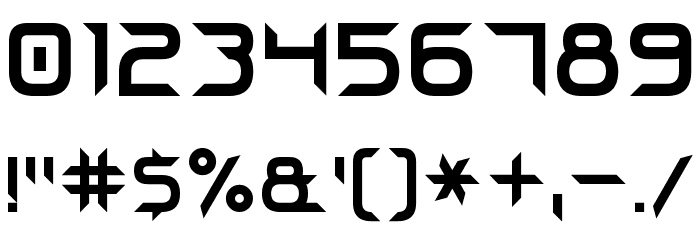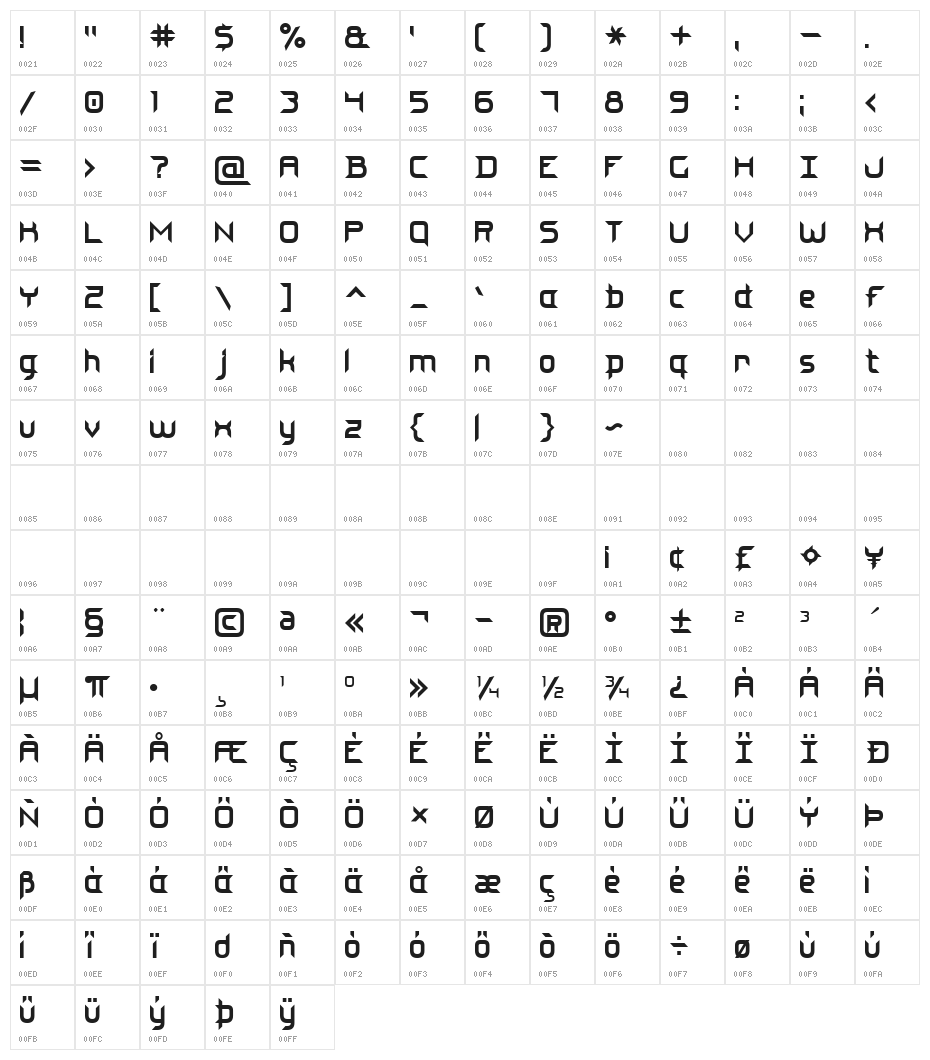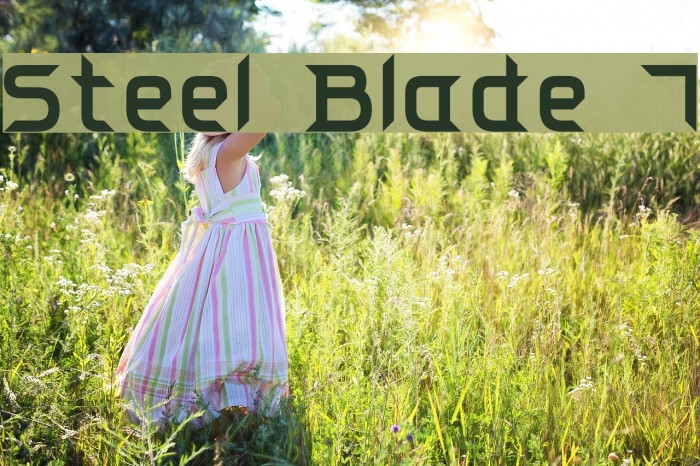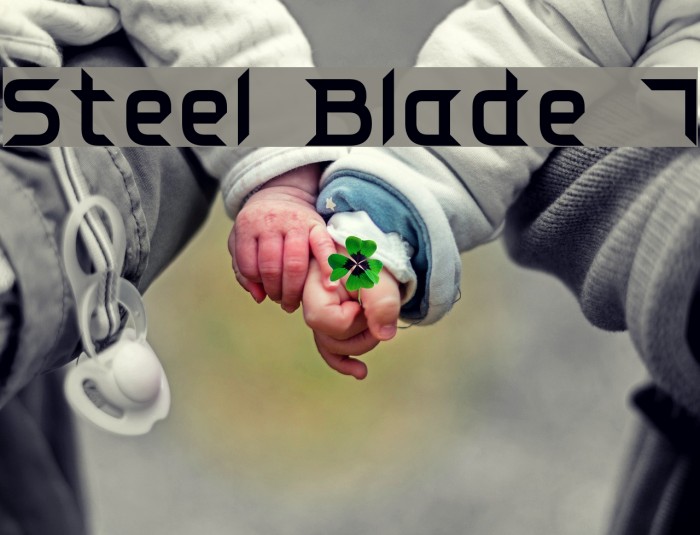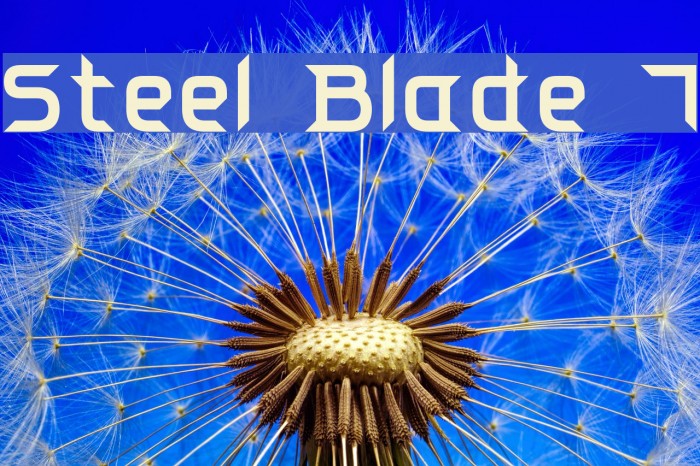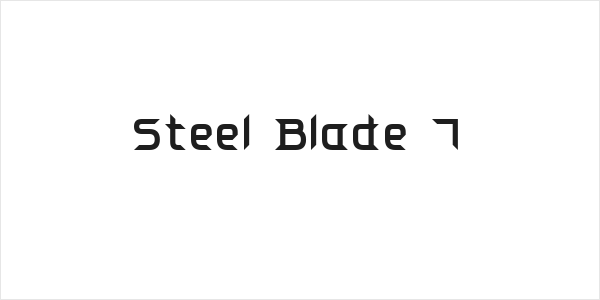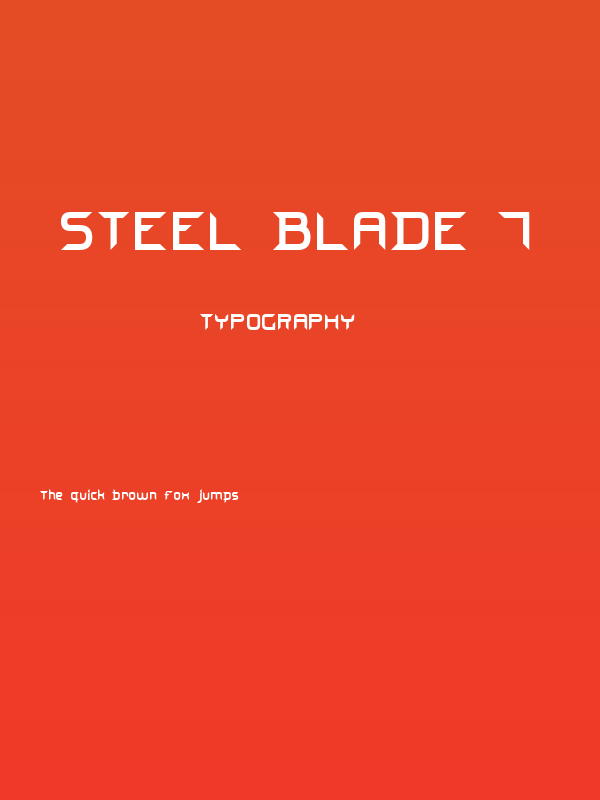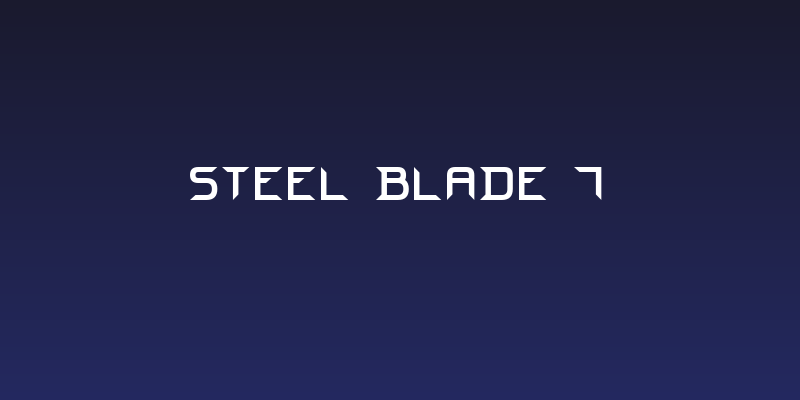
Steel Blade 7 Font
Steel Blade 7 Description
This font features a bold, angular design with sharp edges and a futuristic aesthetic. The characters are crafted with a geometric precision, giving them a distinct, cutting-edge appearance. The uppercase and lowercase letters maintain a consistent style, with unique cuts and angles that create a dynamic visual impact. The numerals and special characters follow the same design principles, ensuring a cohesive look across all glyphs. This font is ideal for projects that require a modern and edgy feel, such as technology branding, video game titles, or sci-fi themed designs.
| Proposed Projects | Ideal for technology branding, video game titles, and sci-fi themed designs. |